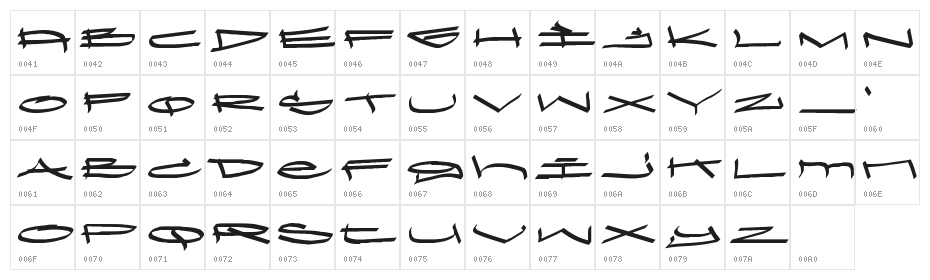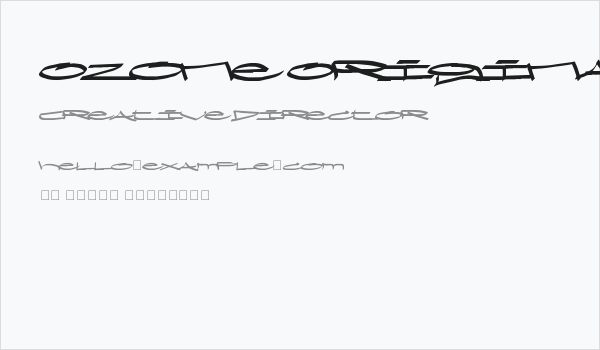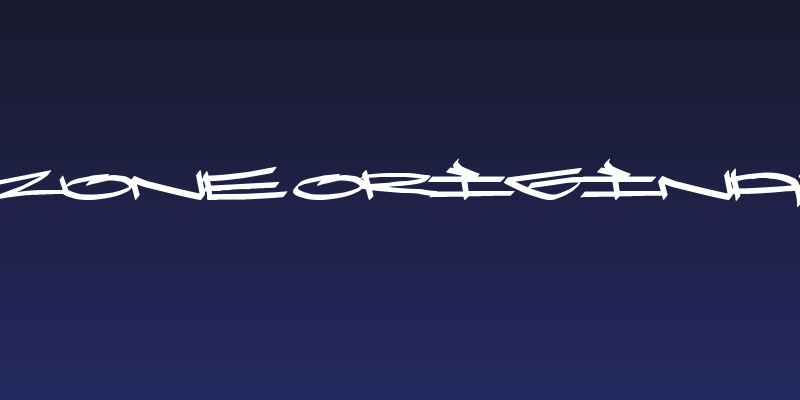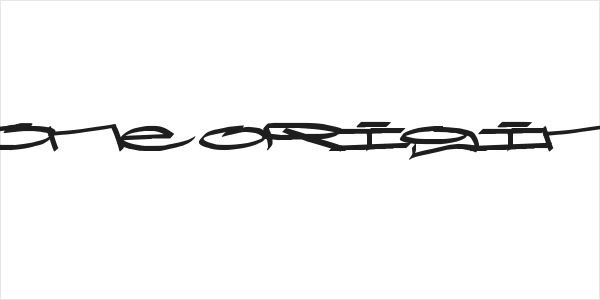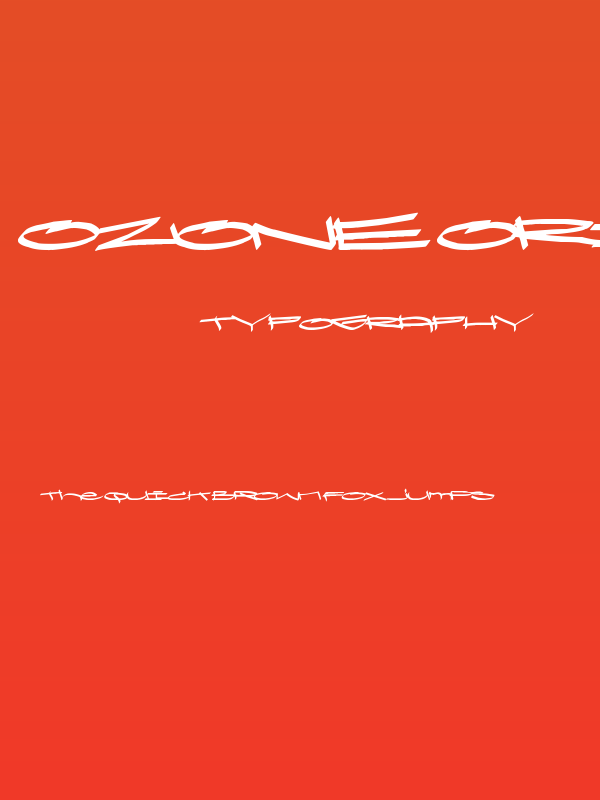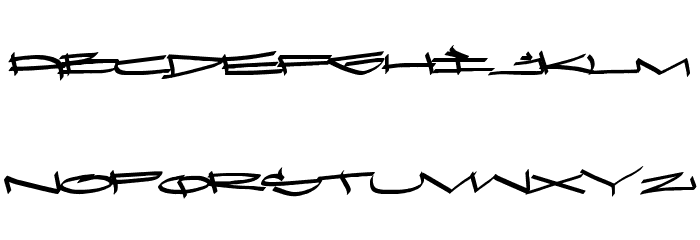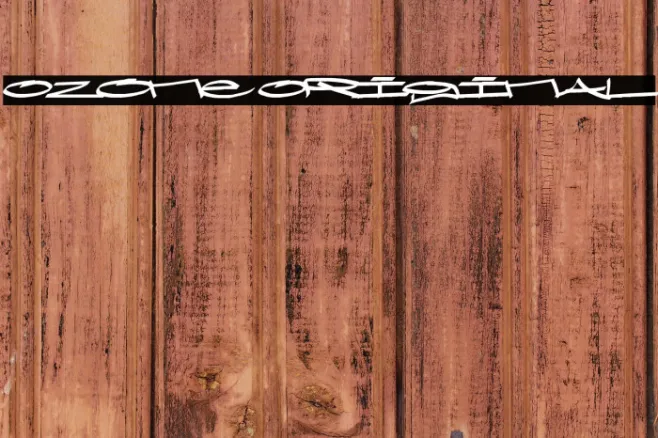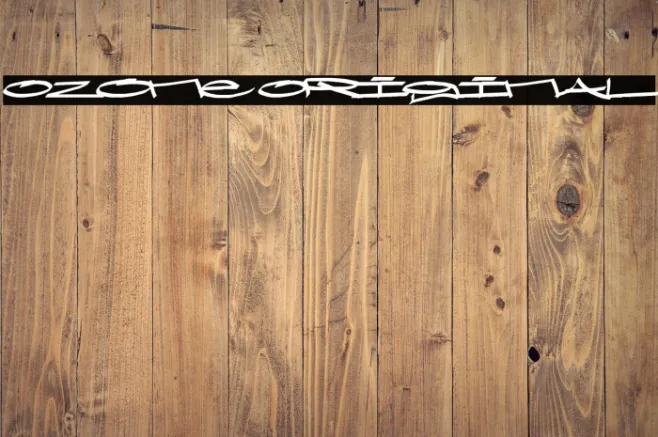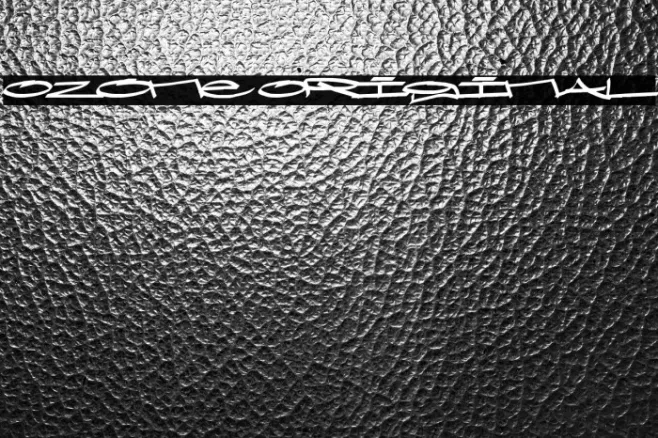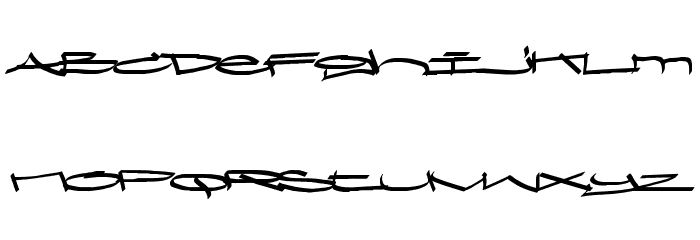
Ozone Original Font
Ozone Original Description
This font exhibits a highly stylized and edgy design, characterized by sharp angles and an almost graffiti-like appearance. The letters are elongated and feature irregular strokes, giving them a dynamic and rebellious feel. The uppercase and lowercase letters maintain a consistent style, with the uppercase being slightly more pronounced. The numbers and special characters follow the same aesthetic, ensuring uniformity across all characters. The font's unique style makes it stand out, ideal for projects that require a bold and unconventional look.
| Overall Style | Modern, Urban |
| Use Case | Logos, Posters, Headlines |
| Proposed Projects | Ideal for street art designs, edgy branding, music album covers, and urban-themed posters. |